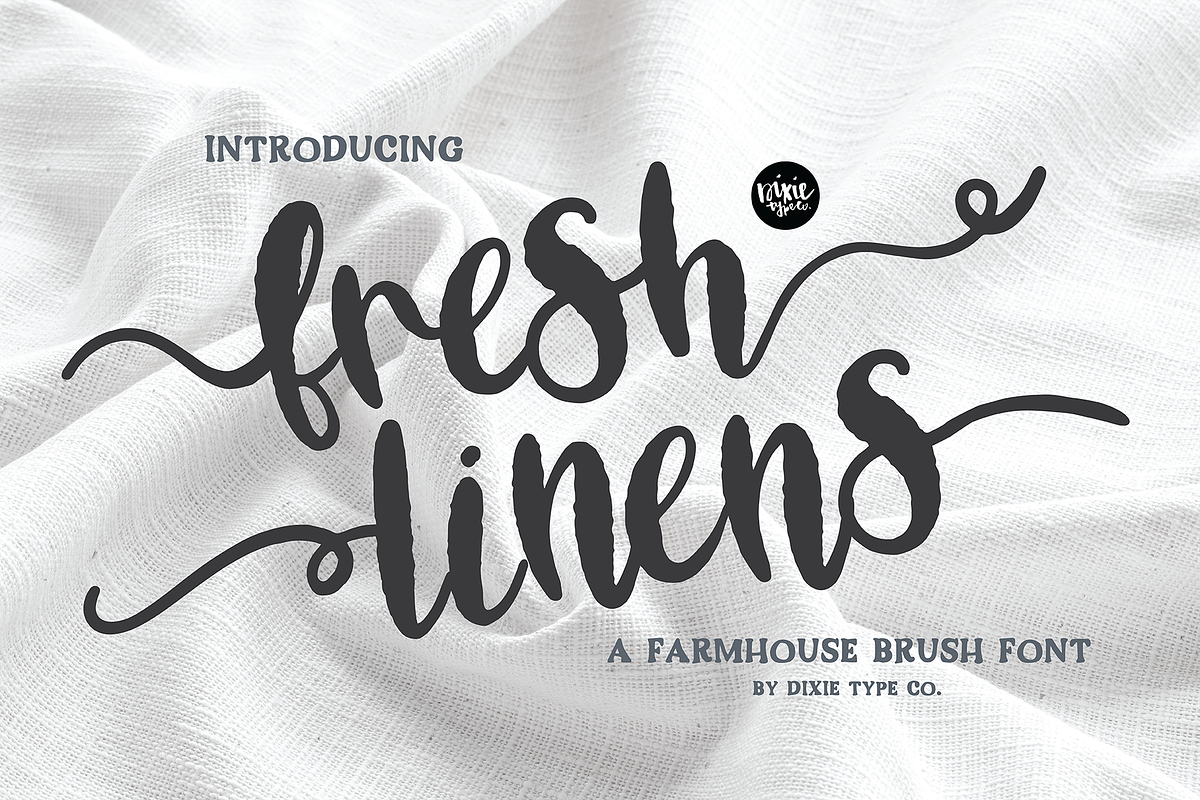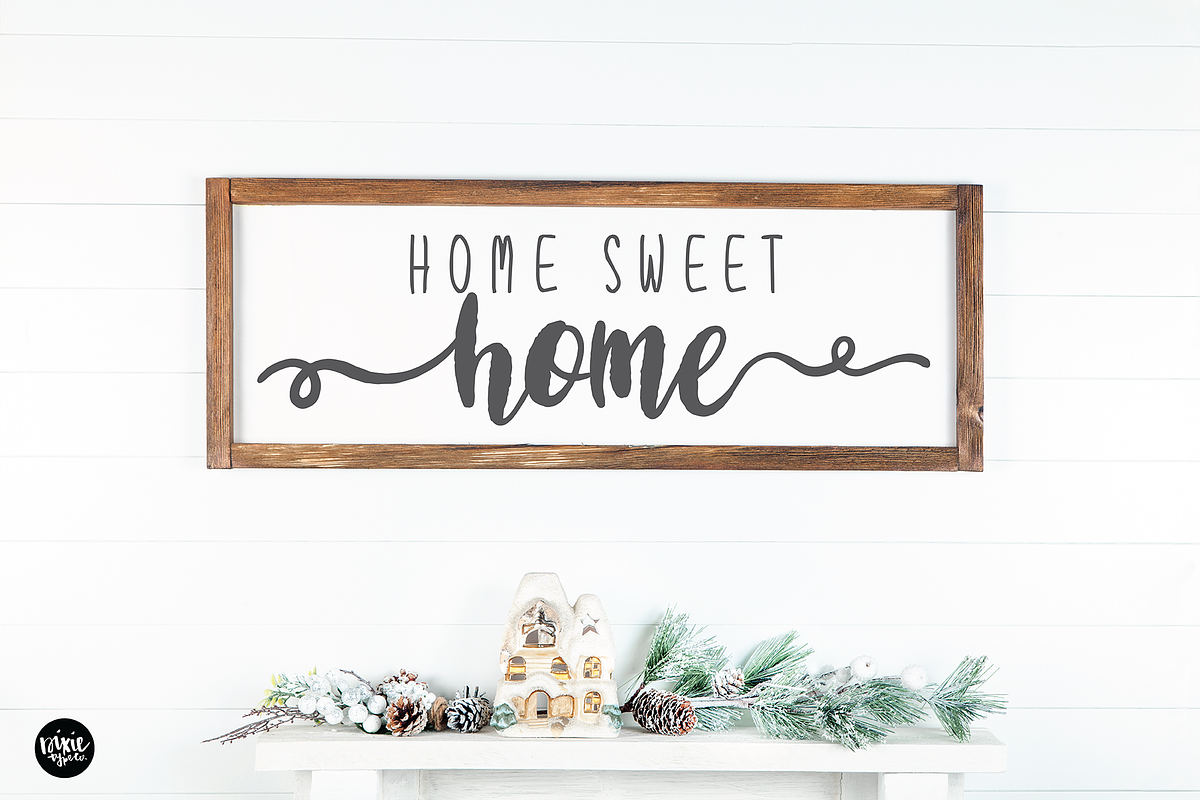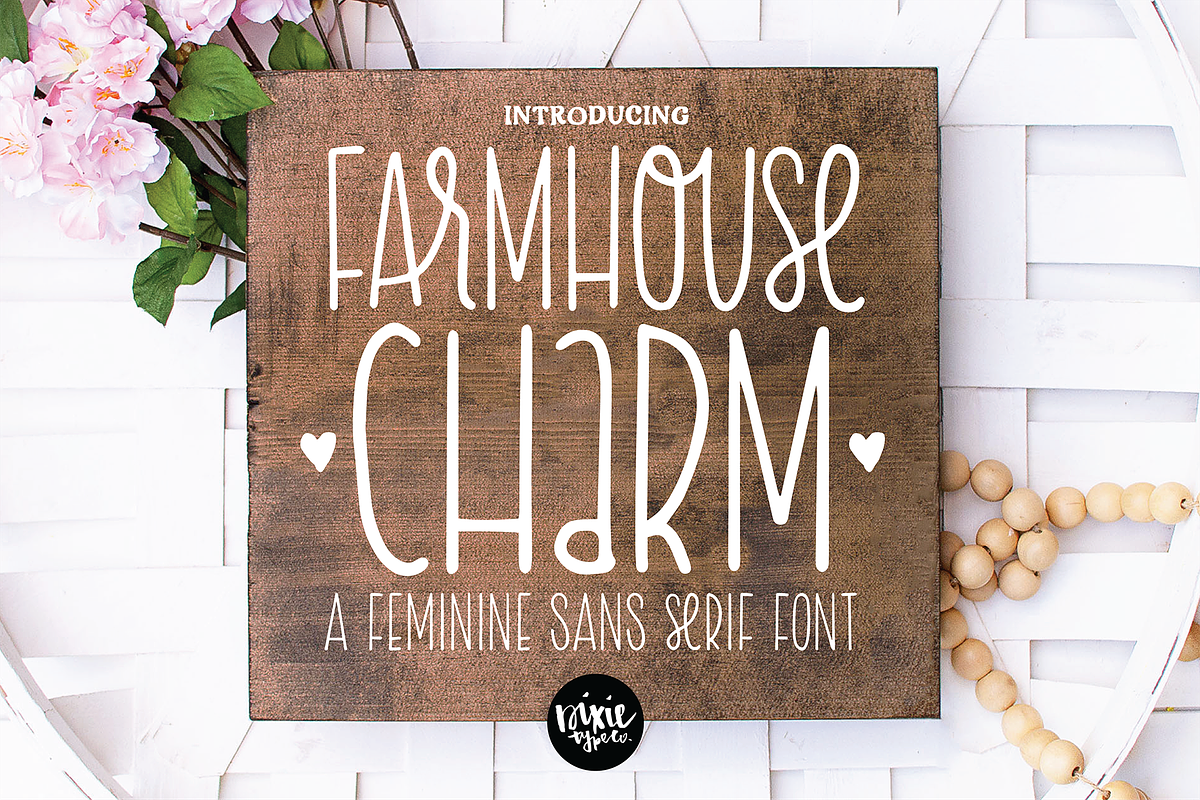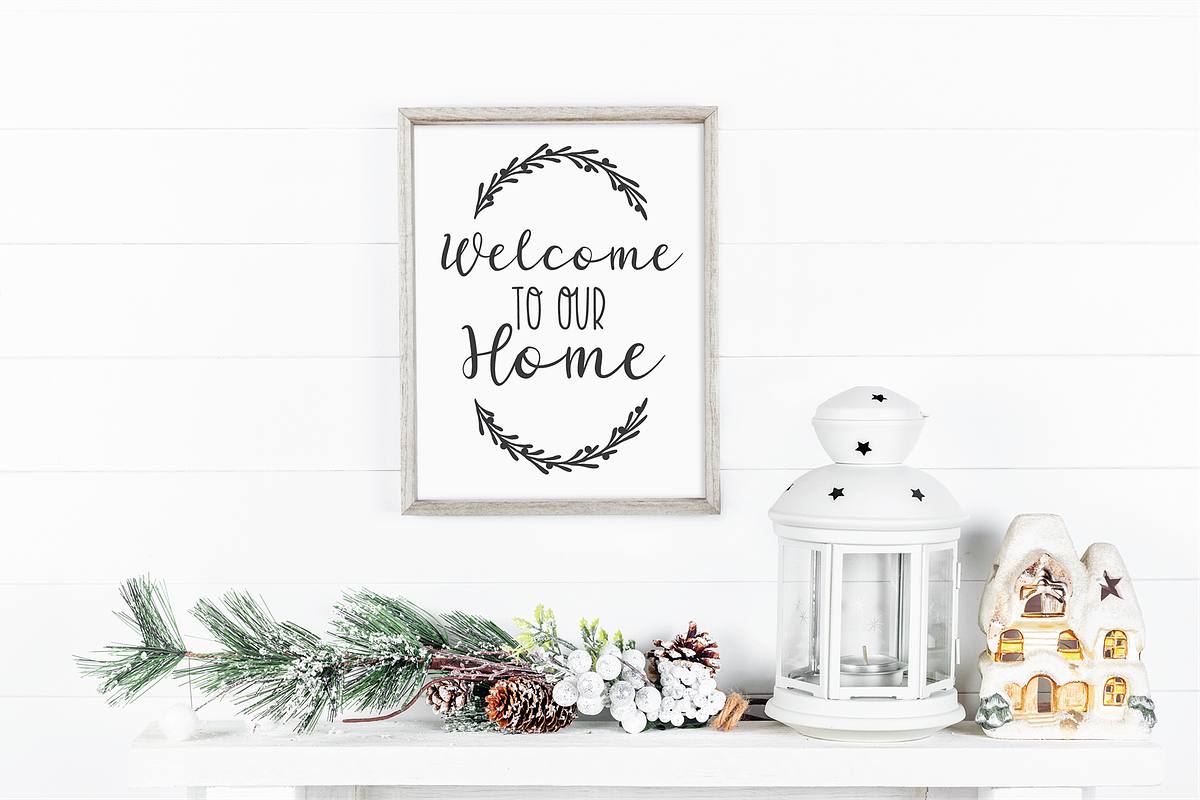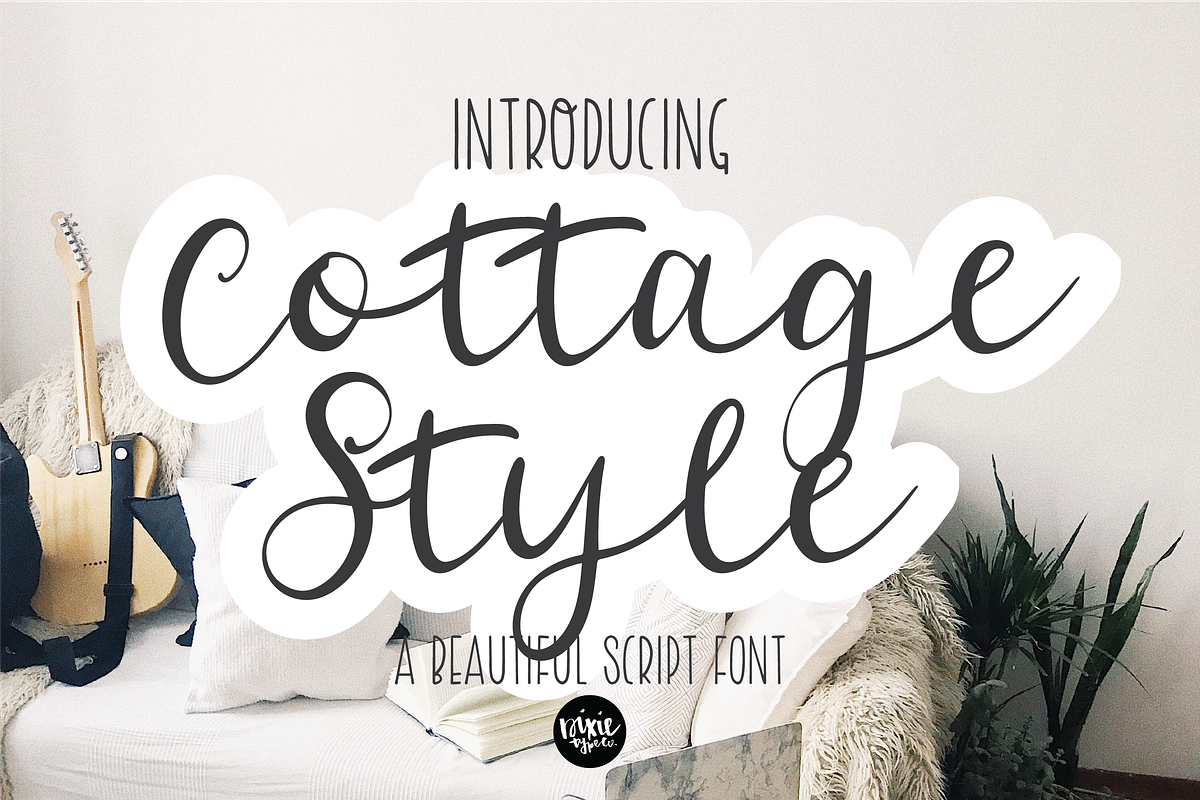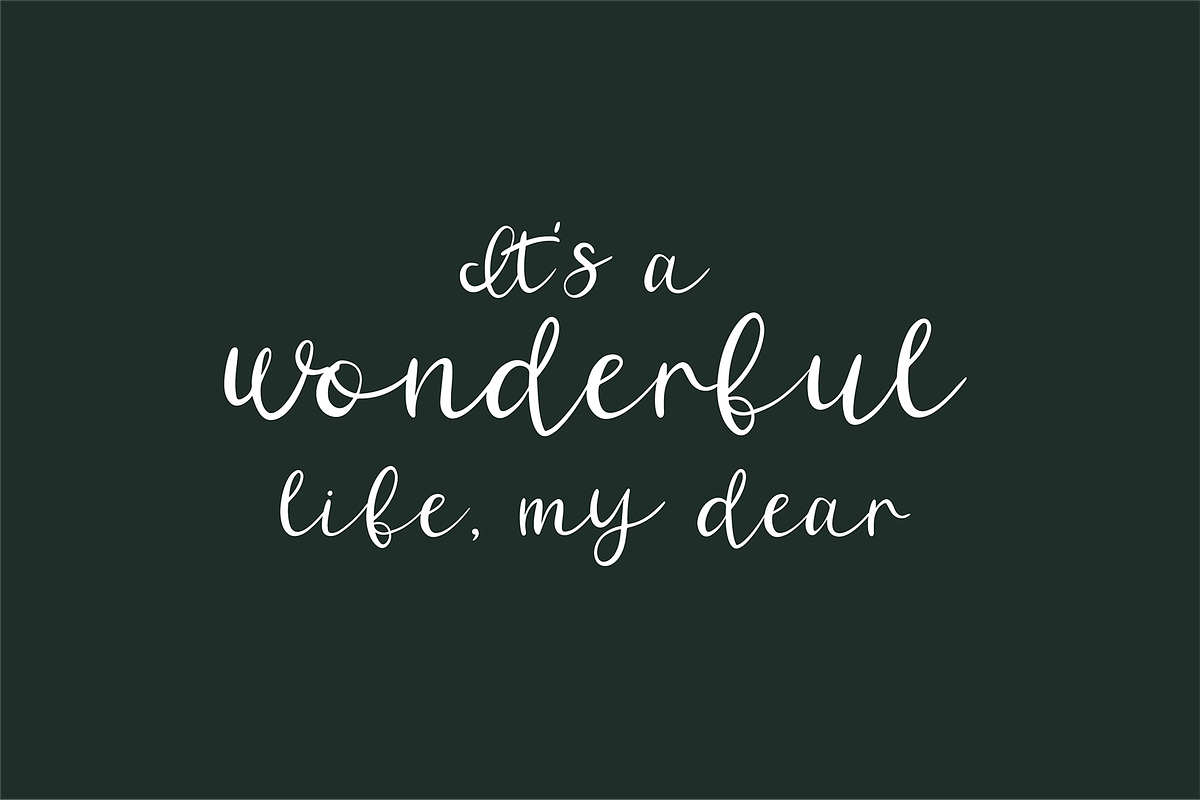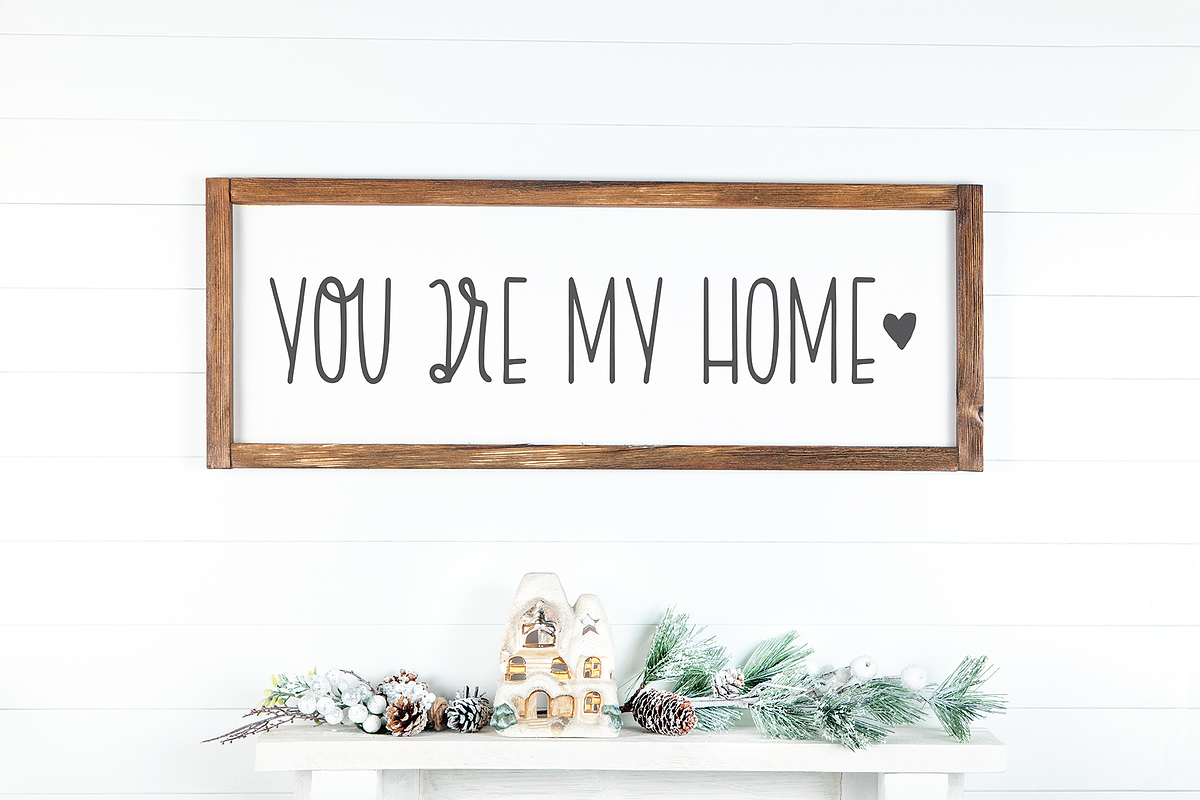
Farmhouse Font Bundle
These fonts were all hand-lettered with a brush and ink, or iPad Pro.
SHIPLAP COTTAGE STYLE HOMESTEAD FARMER'S MARKET FARMHOUSE CHARM GORGEOUS SKYWALK HONEY BEE FRESH LINENS
Why Farmhouse Font Bundle is worth a look
Farmhouse Font Bundle by Blush Font Co. fits naturally into Branding, posters, packaging, typography.